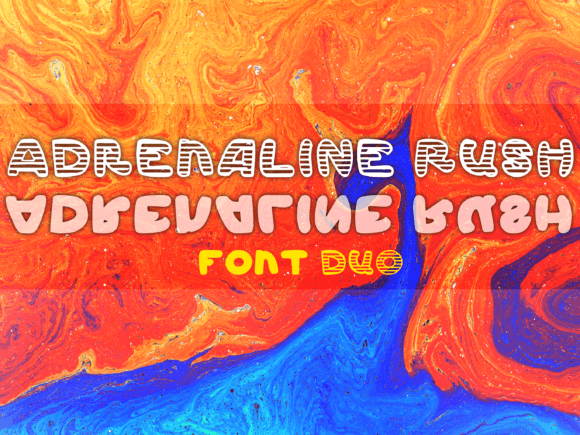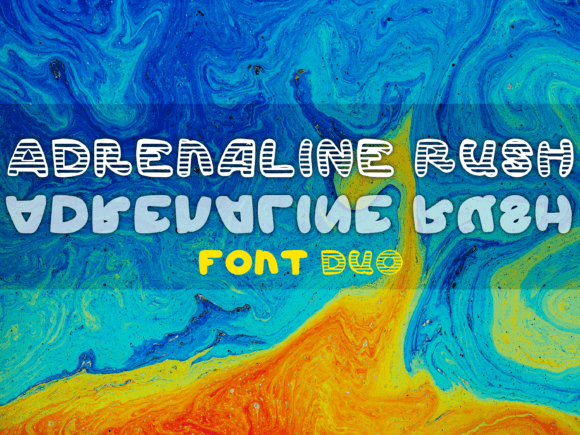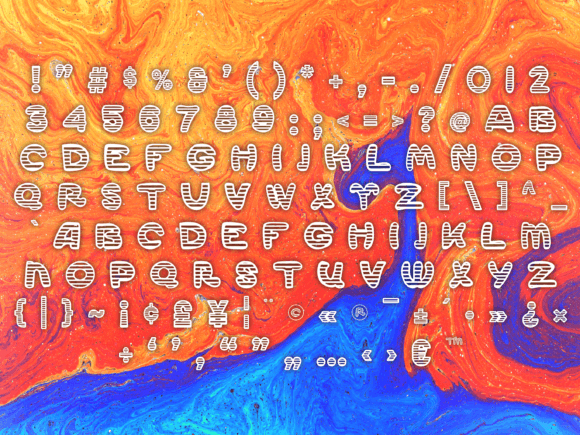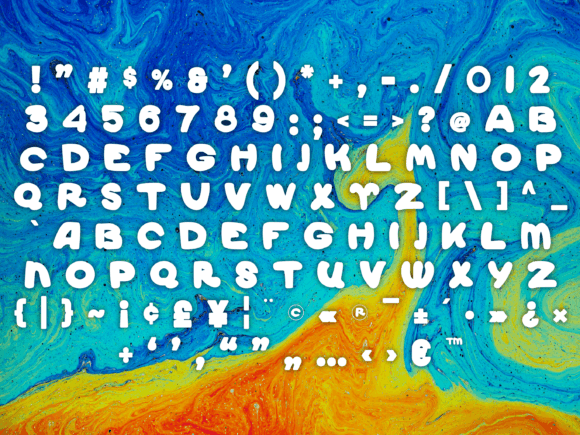
Adrenaline Rush Font: A Bold Display Font for Sporty Logos!
About the Adrenaline Rush Font
Meet Adrenaline Rush Font, a stunning font that brings a touch of elegance and professionalism to any design. Adrenaline Rush is a display font duo with a solid style and striped style. Have fun with this cool combo, and create something spectacular with it!
Adrenaline Rush excels as a display font for headlines, posters, and branding projects requiring a bold, energetic statement. Its strong forms work particularly well in short, impactful phrases or logos. Avoid using it for body text or lengthy paragraphs; the weight and unique styling would be difficult to read at smaller sizes.
The font’s core personality is undeniably bold and modern. It projects excitement and dynamism, making it ideal for brands focused on action, adventure, or high-energy products.
Consider pairing Adrenaline Rush with a clean sans-serif like Open Sans for body copy or a more geometric sans-serif like Futura for a balanced, high-contrast feel. For a softer contrast, a neutral serif such as Lora could provide a sophisticated counterpoint.